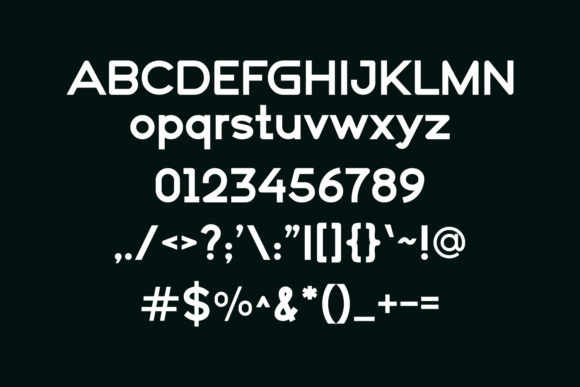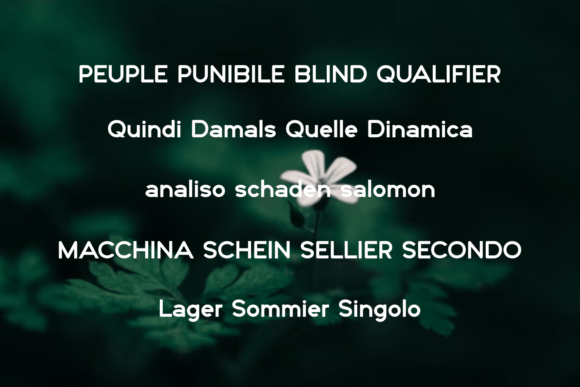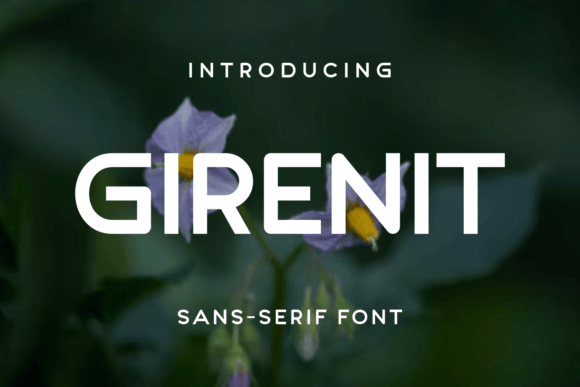
Girenit Font: Elevate Your Designs with a Cool and Unique Sans Serif Font
In the world of typography, fonts play a crucial role in making or breaking a design. A font can either make your creation stand out or blend in with the crowd. If you’re a designer or crafter looking for a font that can elevate your designs, look no further than Girenit Font. In this article, we’ll explore what makes Girenit a cool and unique sans serif font and why it’s an incredible asset to your font library.
What is Girenit Font?
Girenit Font is a modern sans serif font that has gained popularity among designers and crafters due to its unique and cool design. It’s a versatile font that can be used for a wide range of projects, from branding and advertising to packaging and digital designs. Girenit Font is designed to be highly legible, making it perfect for body text, headlines, and titles.
What Makes Girenit Font Stand Out?
So, what sets Girenit Font apart from other sans serif fonts? Here are a few key features that make it a standout:
- Unique Design: Girenit Font has a distinct design that sets it apart from other sans serif fonts. Its clean lines, rounded edges, and subtle curves make it a visually appealing font that’s sure to grab attention.
- High Legibility: Girenit Font is designed to be highly legible, even at small sizes. This makes it perfect for body text, where readability is crucial.
- Versatility: Girenit Font is a versatile font that can be used for a wide range of projects, from digital designs to print materials.
- Modern Feel: Girenit Font has a modern feel that’s perfect for designs that require a fresh and contemporary look.
Why Should You Use Girenit Font?
Now that we’ve explored what makes Girenit Font unique, let’s dive into why you should consider using it in your designs:
- Elevate Your Designs: Girenit Font has the potential to elevate any creation, making it a valuable addition to your font library.
- Save Time: With Girenit Font, you can save time searching for the perfect font for your project. Its versatility and legibility make it a go-to font for many designers.
- Stand Out from the Crowd: Girenit Font is still a relatively new font, which means that you’re unlikely to see it used by many other designers. This makes it a great way to stand out from the crowd and create unique designs.
How to Use Girenit Font?
Using Girenit Font is easy. Here are a few tips to get you started:
- Pair it with Other Fonts: Girenit Font works well when paired with other fonts. Try pairing it with a serif font for a classic look or with another sans serif font for a modern feel.
- Experiment with Different Sizes: Girenit Font is highly legible, even at small sizes. Experiment with different sizes to find the perfect fit for your design.
- Use it for Headlines and Body Text: Girenit Font is perfect for both headlines and body text. Use it to create visually appealing headings and easy-to-read body text.
In conclusion, Girenit Font is a cool and unique sans serif font that’s sure to elevate any creation. Its versatility, legibility, and modern feel make it a valuable addition to any font library. Whether you’re a designer or crafter, Girenit Font is definitely worth checking out. So, what are you waiting for? Download Girenit Font today and take your designs to the next level!